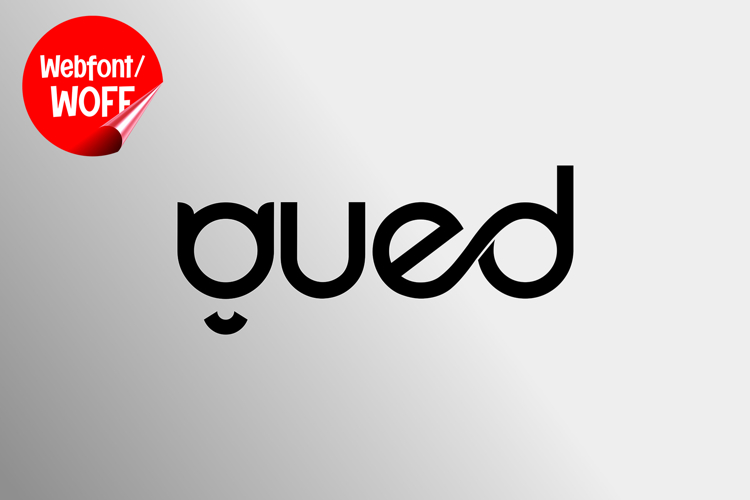
Gued | Minimalist Logotype Webfont for Modern Branding
Gued is a minimalist logotype webfont designed to bring clean sophistication and modern branding aesthetics into contemporary website design. Inspired by sleek logo typography and minimalist visual trends, this font features balanced letterforms and refined geometric structure that create a professional and elegant visual identity. It is an excellent choice for projects that aim to deliver a modern, stylish, and highly versatile typographic appearance.
Gued includes a complete set of uppercase characters designed with minimalist logotype aesthetics. The letterforms feature clean lines, smooth curves, and carefully balanced proportions that create a sleek and contemporary appearance. These characteristics make it ideal for logos, headlines, banners, hero sections, branding layouts, and featured content where clarity and visual elegance are essential.
In addition to letters, the font includes numbers and punctuation, allowing flexible usage across various parts of a website. It works well for fashion branding, technology websites, startup companies, creative agencies, luxury product showcases, and editorial layouts. Each character maintains a consistent minimalist style, ensuring a cohesive and unified visual identity throughout the design.
With multilingual support, Gued includes a wide range of accented characters, making it suitable for international websites and global audiences. This ensures content remains clear and visually consistent across different languages while preserving the sleek and modern aesthetic.
The minimalist logotype style of Gued makes it especially suitable for branding-focused websites, premium digital products, modern lifestyle platforms, and creative business presentations. Its clean and structured appearance creates a professional atmosphere that helps websites stand out in visually competitive environments. The refined typography enhances readability while maintaining a sophisticated visual presence.
Despite its minimalist design approach, Gued is created with strong visual impact in mind. The spacing and proportions are carefully balanced to ensure excellent readability, particularly in large headings and branding applications. This allows designers to use the font effectively for impactful titles and professional visual communication without sacrificing usability.
Gued is a webfont that combines minimalist logotype aesthetics with modern digital performance. Its clean forms, refined structure, and contemporary character create a distinctive typographic presence that enhances website design. For projects that require a stylish, elegant, and visually engaging minimalist font, Gued offers a versatile and reliable solution.